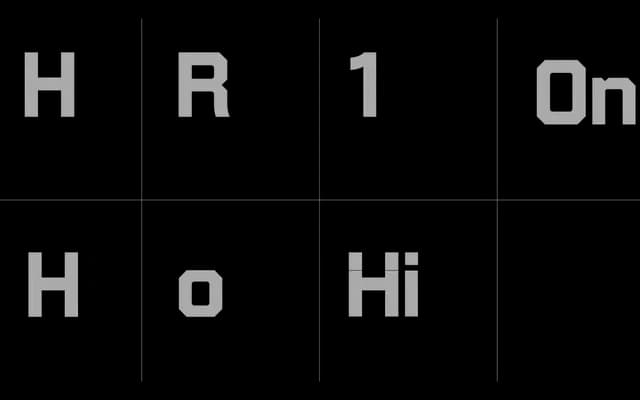
A Playtype typeface with almost no publicly available detail beyond a short evocative blurb.
The product page for AAA offers little more than a short poetic fragment, making it difficult to assess the family's full scope, weight range or intended application. Based on Playtype's general output, it is likely a display-oriented Latin typeface. Without specimen material or technical specifications, a thorough assessment is not possible.
The page provides almost no technical detail, but the name and sparse poetic copy suggest a display-oriented typeface; categorised as display sans in the absence of further information.